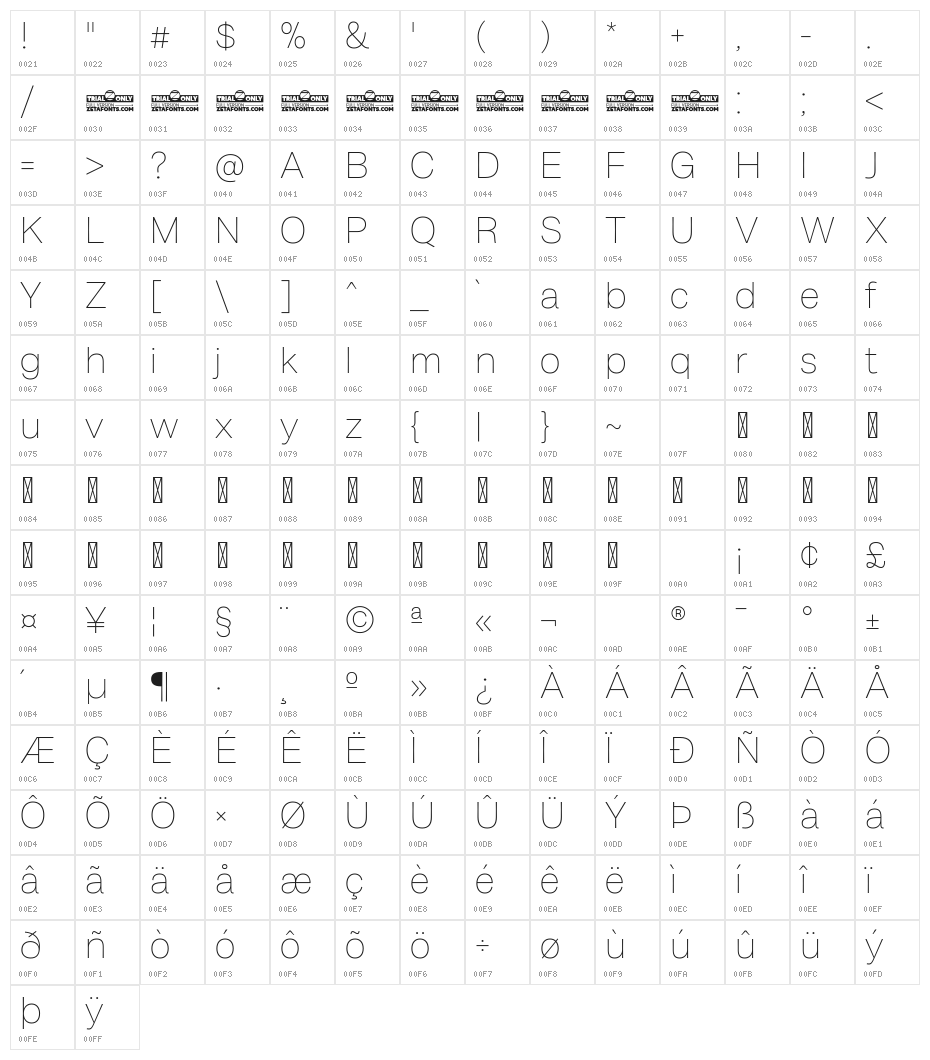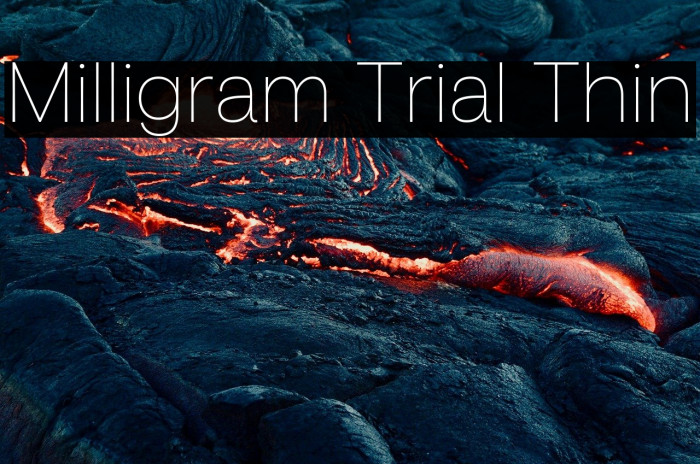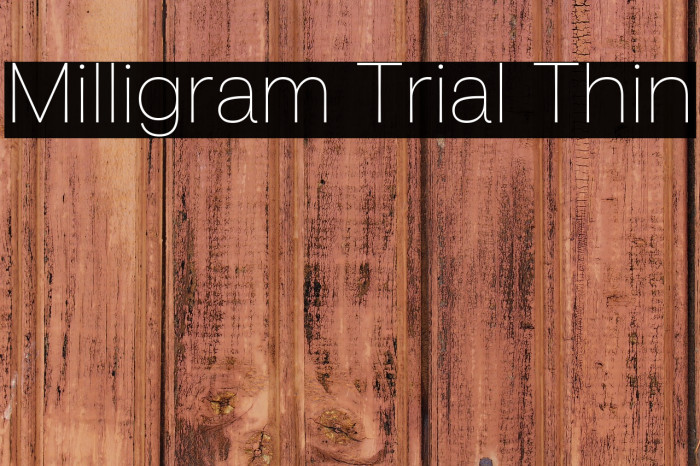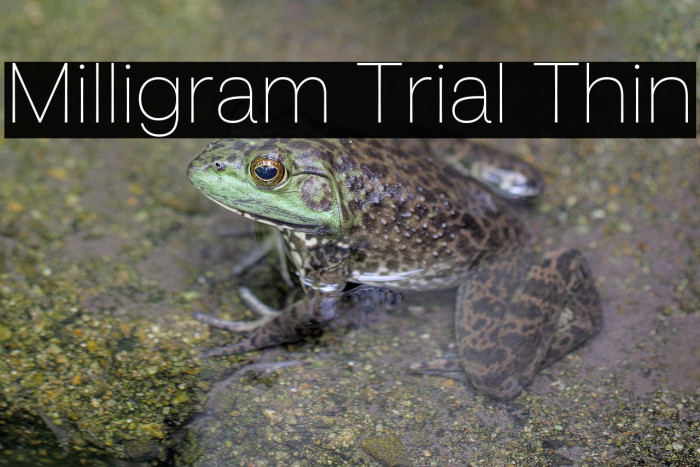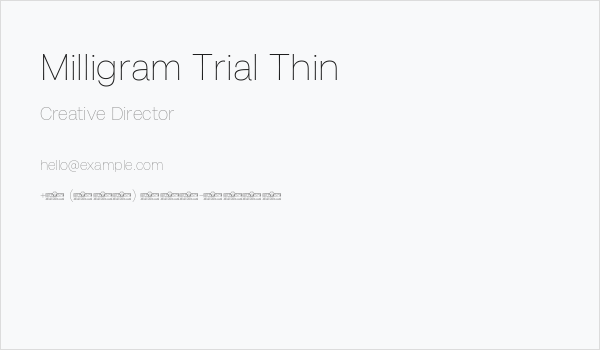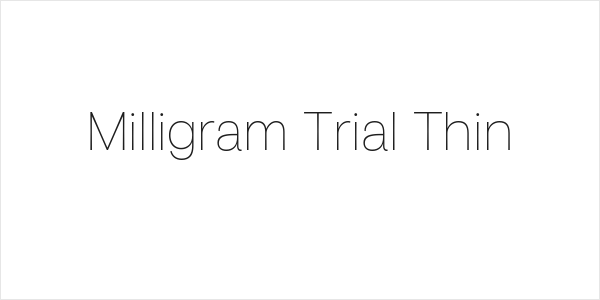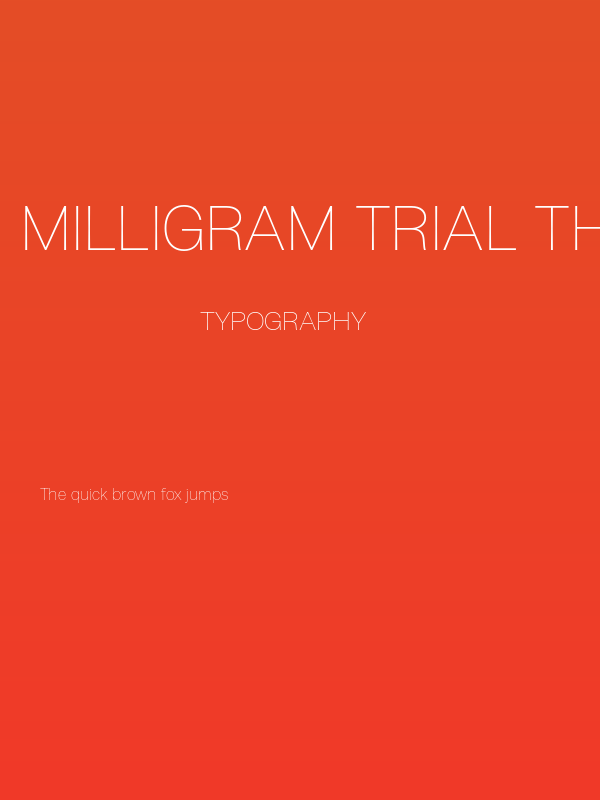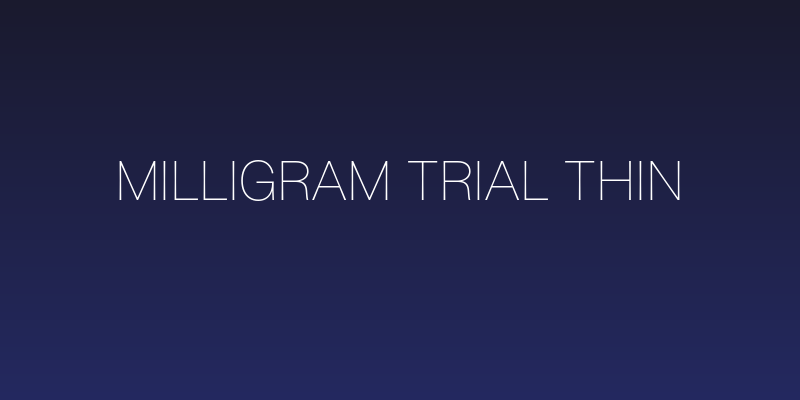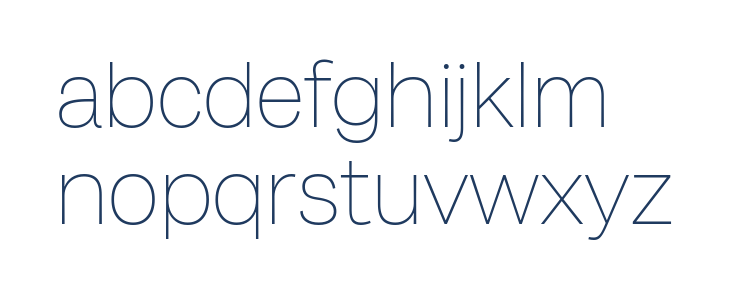
Milligram Trial Thin Font
Milligram Trial Thin Description
This font features a sleek and minimalist design with thin, clean lines and a modern aesthetic. The characters are evenly spaced, providing a balanced and airy appearance. The uppercase and lowercase letters maintain a consistent height and width, contributing to its uniformity. The numerals and special characters are designed with the same thin strokes, ensuring a cohesive look across all elements. This font is ideal for projects that require a contemporary and elegant touch, offering clarity and readability.
| Proposed Projects | Ideal for modern branding, minimalist design projects, digital interfaces, and editorial layouts. |